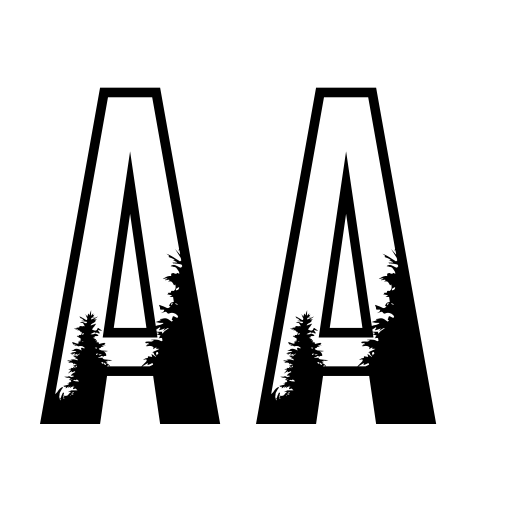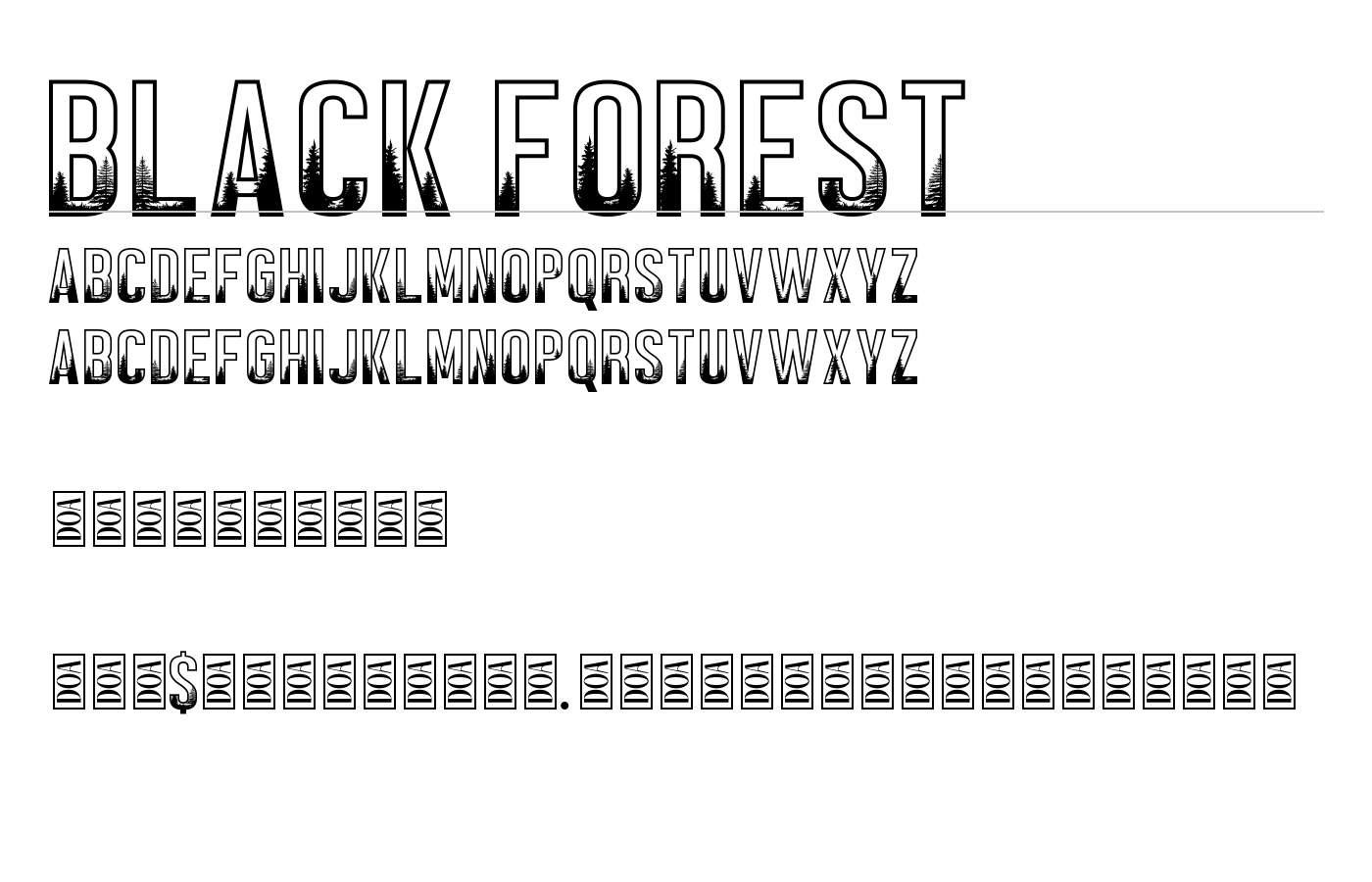
BLACK FOREST is a bold, condensed sans-serif display font featuring tall uppercase letters with a striking forest silhouette integrated into the lower portion of each character. Its high contrast between the clean outlines and detailed tree textures creates a dramatic, nature-inspired look perfect for branding, posters, and headlines that aim to evoke an adventurous, outdoorsy, or mysterious vibe. This eye-catching typeface works best in large sizes where its unique decorative effect can truly stand out.
BLACK FOREST Font
About BLACK FOREST Font